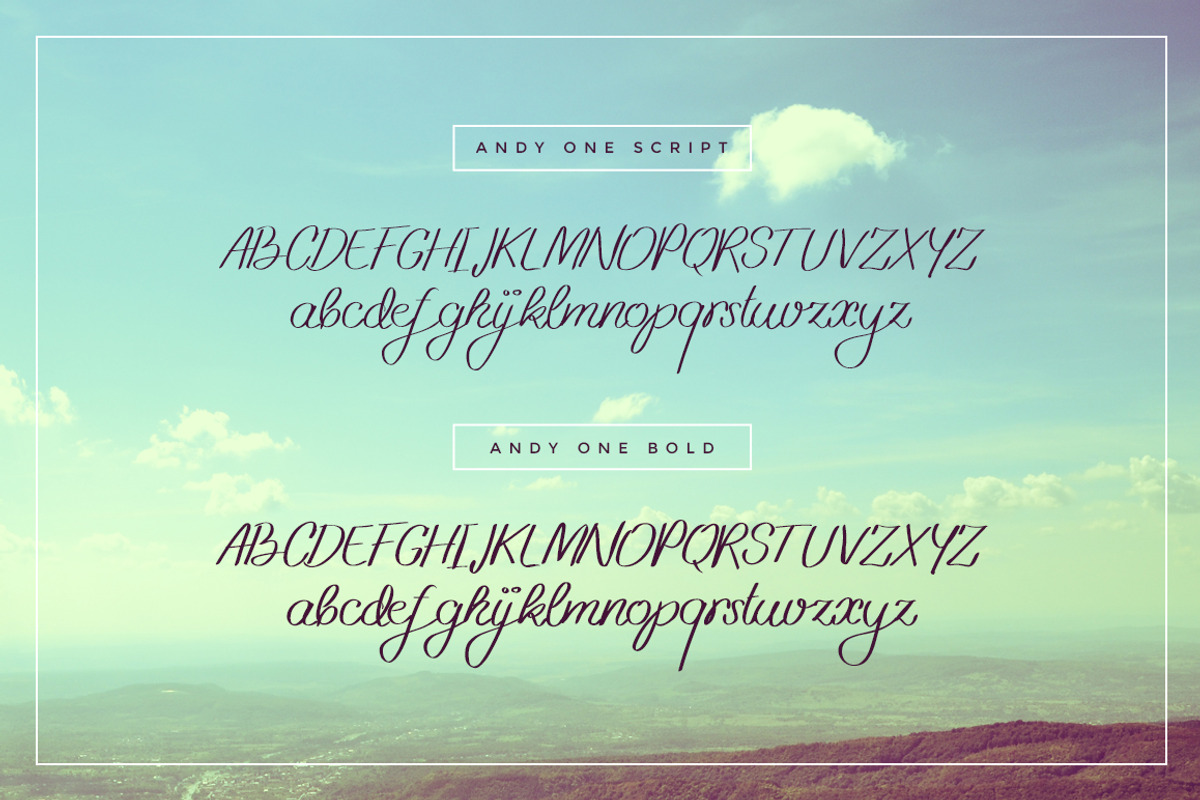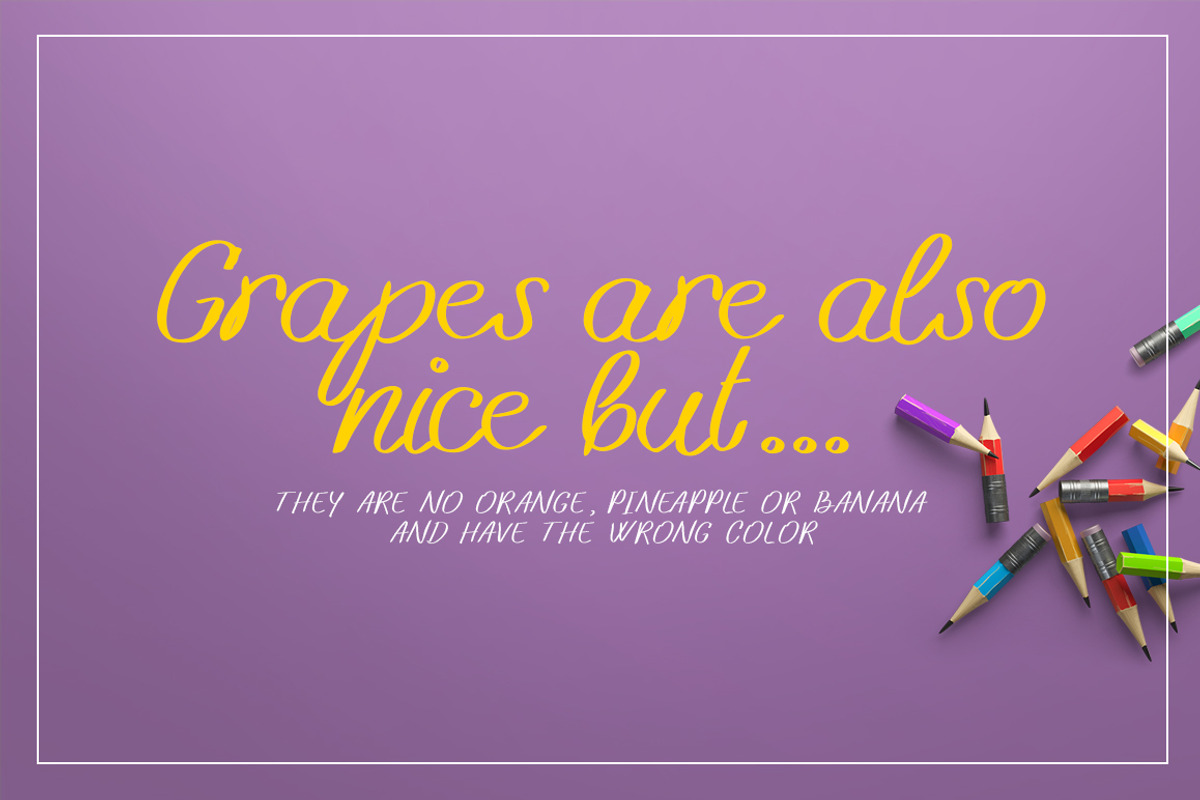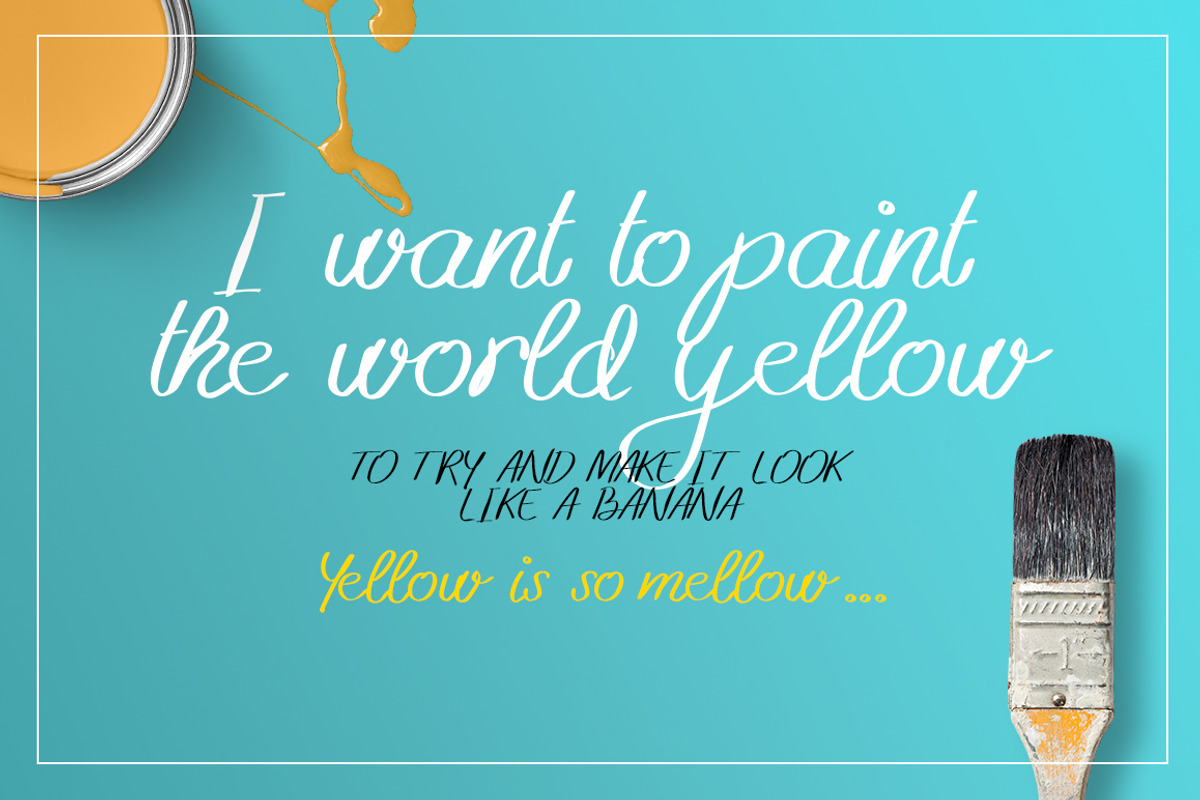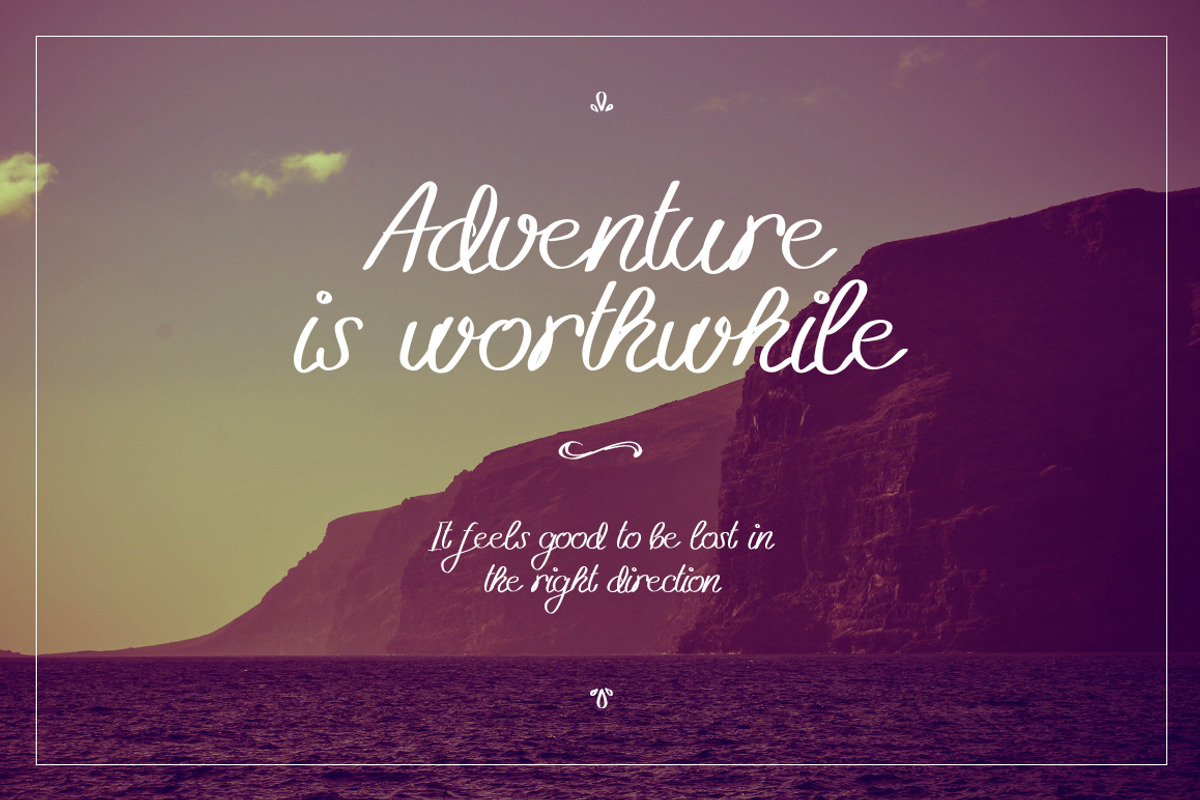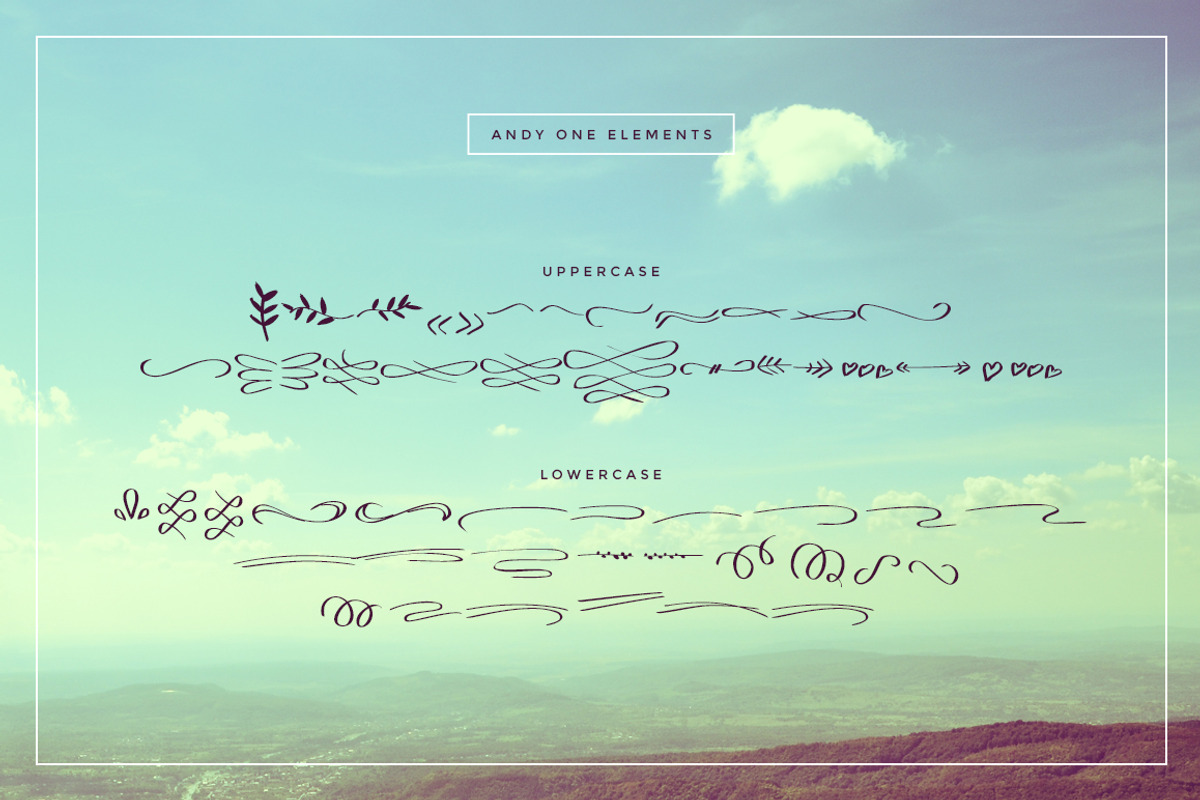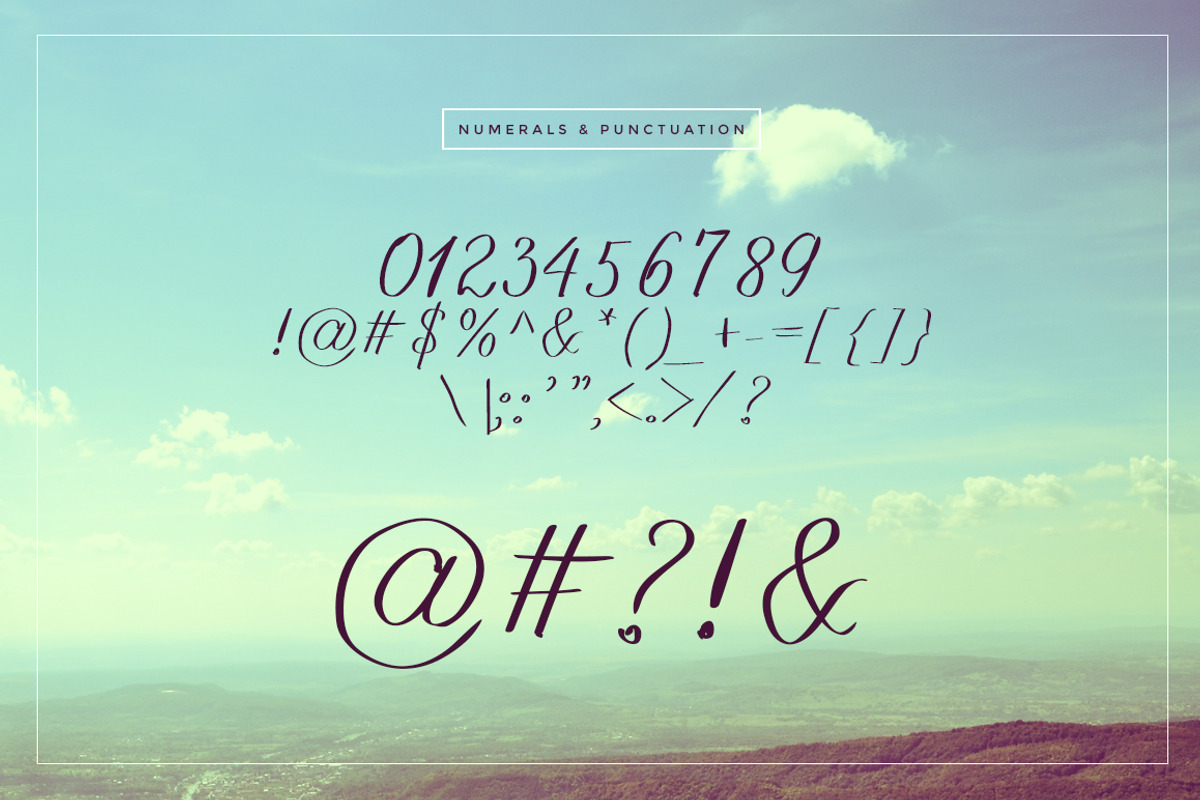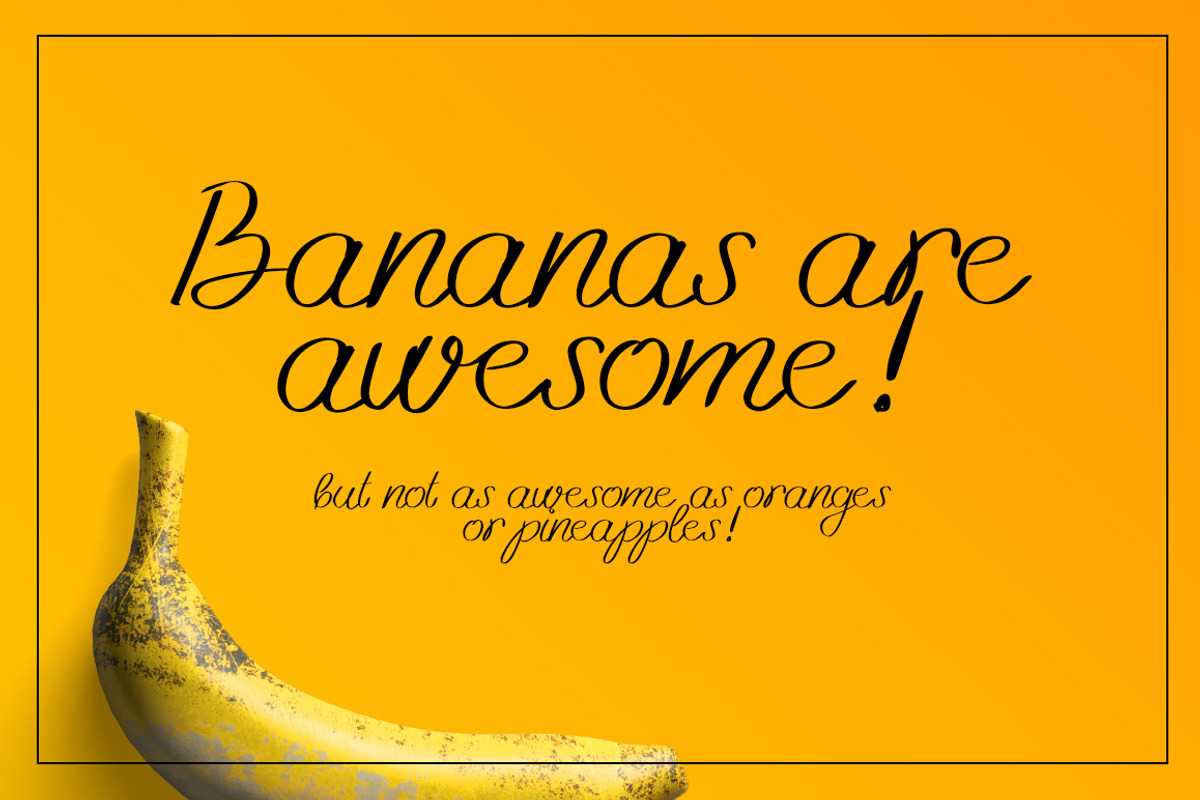
Andy One Font
A cute, simple, friendly type font for your future projects and perfect to add to your collection! It includes the regular hand drawn letters, a bold version that is only slightly thicker and a set of great swashes of elements that also come in the form of a font!
Uppercase and lowercase letters
Numerals and punctuation
Bonus swashes and elements font
This font has no ligatures or multilingual support at the moment.
- 100% hand drawn
Andy One Font by Graphicdome fits naturally into Branding, posters, packaging, typography.